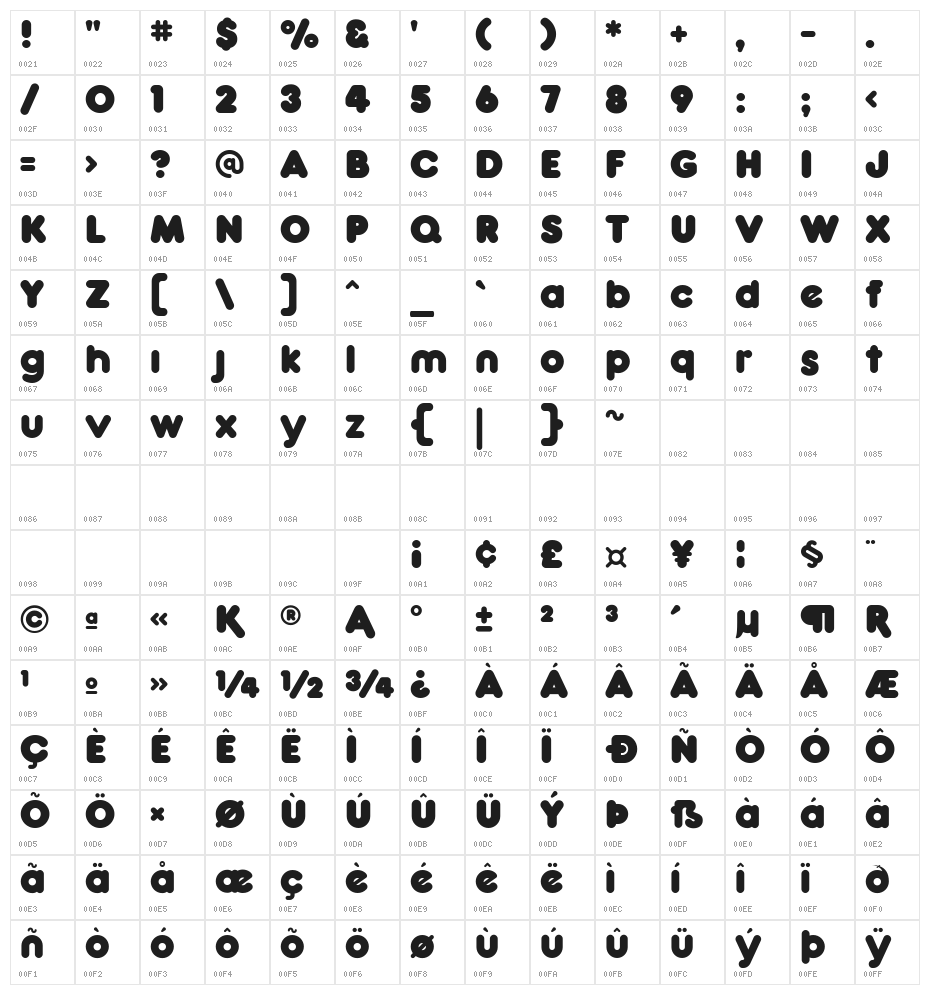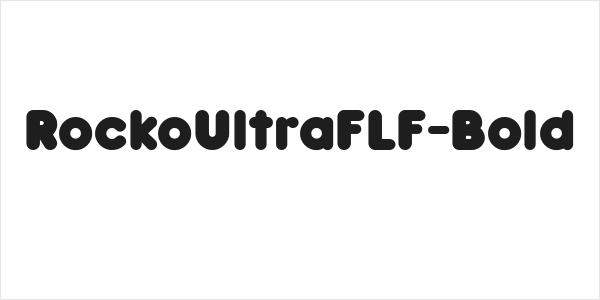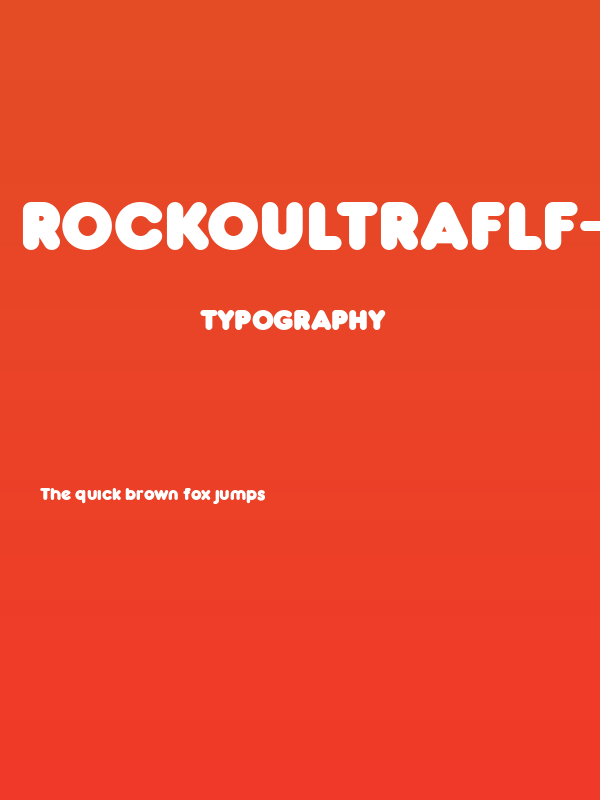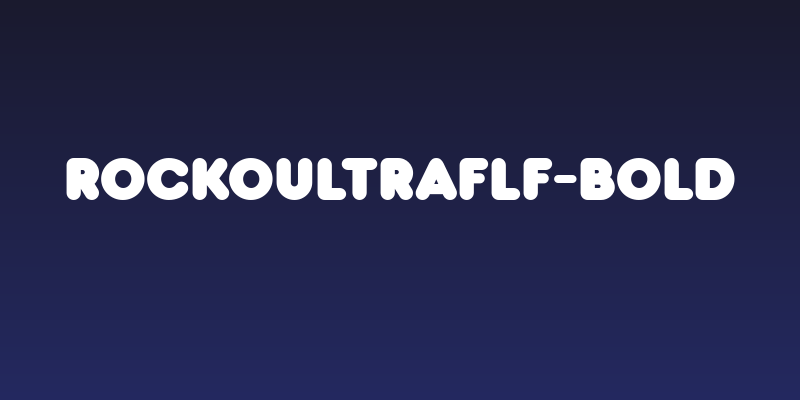
RockoUltraFLF-Bold Font
RockoUltraFLF-Bold Description
This font features a bold and rounded style, characterized by its thick, uniform strokes and playful appearance. The letters are evenly spaced with a consistent width, giving it a cohesive and balanced look. Its rounded edges and lack of sharp angles contribute to a friendly and approachable feel. The font maintains a consistent weight throughout, making it highly legible and suitable for various design applications. The numbers and special characters follow the same design principles, ensuring uniformity across all glyphs.
| Overall Style | Playful, Modern |
| Proposed Projects | Ideal for children's books, playful branding, posters, and any design requiring a friendly and bold typeface. |